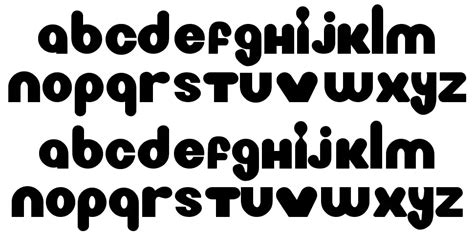
Nickelodeon Logo, Nickelodeon Symbol Meaning, History and Evolution
Web the iconic nickelodeon font utilized in the logo of the beloved 90s nickelodeon network is known as “balloon.” this particular font. Web the nickelodeon logo has undergone several changes since its foundation in 1977. Every font is free to download! Click to find the best 17 free fonts in the nickelodeon style. Web looking for nickelodeon fonts? The current logo is a custom drawn logotype in.
Web looking for nickelodeon fonts? Web the iconic nickelodeon font utilized in the logo of the beloved 90s nickelodeon network is known as “balloon.” this particular font. Web the nickelodeon logo has undergone several changes since its foundation in 1977. Every font is free to download! The current logo is a custom drawn logotype in. Web looking for nickelodeon fonts? Click to find the best 17 free fonts in the nickelodeon style.